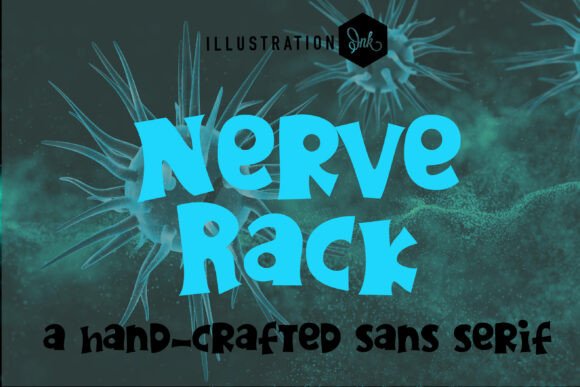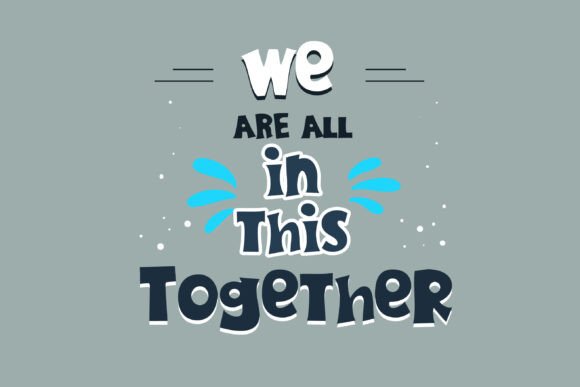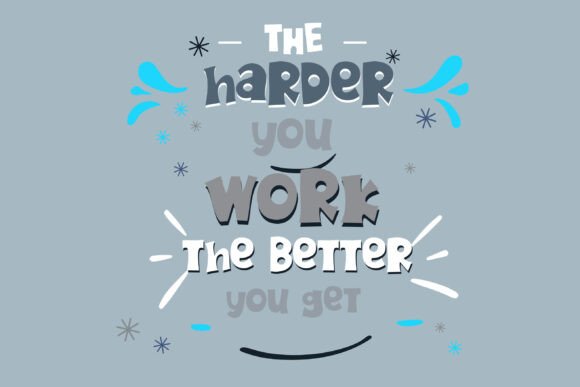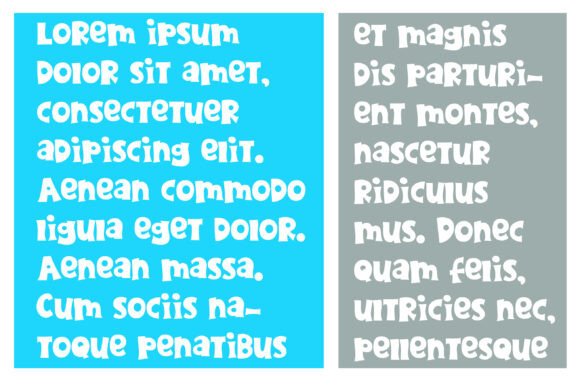
Nerve Rack Font
About the Nerve Rack Font
Meet Nerve Rack Font, a stunning font that brings a touch of elegance and professionalism to any design. This hand-crafted font is a whimsical sans serif with chunky, thick, whimsical, lettering.
Nerve Rack Font’s playful, chunky style makes it ideal for headlines, short taglines, and branding elements where a bold, eye-catching presence is desired. It works exceptionally well on posters, packaging for quirky products, and social media graphics. However, its whimsical nature makes it less suitable for body text or UI elements requiring high readability.
This font’s core personality is undeniably bold and playful. To balance this, consider pairing it with a clean, geometric sans-serif like Futura for a modern contrast, or a more traditional serif like Garamond for a sophisticated juxtaposition.
For a more whimsical feel, a script font with a similar weight could be used sparingly as an accent. Avoid pairing it with overly delicate or thin fonts, which would diminish its impact.